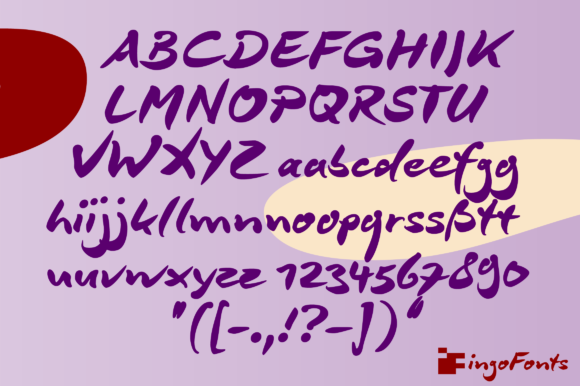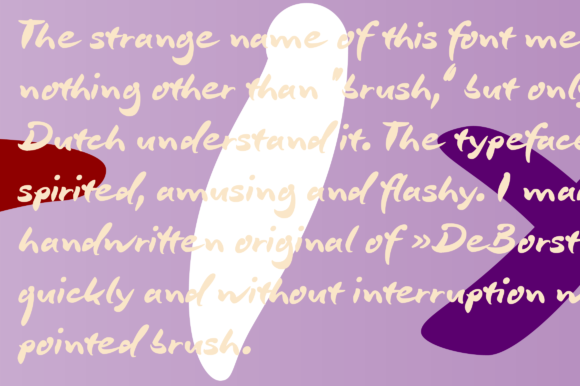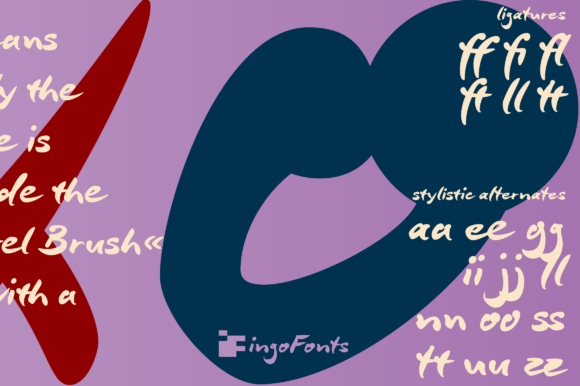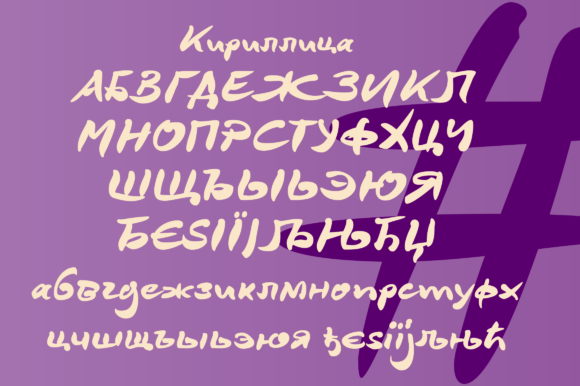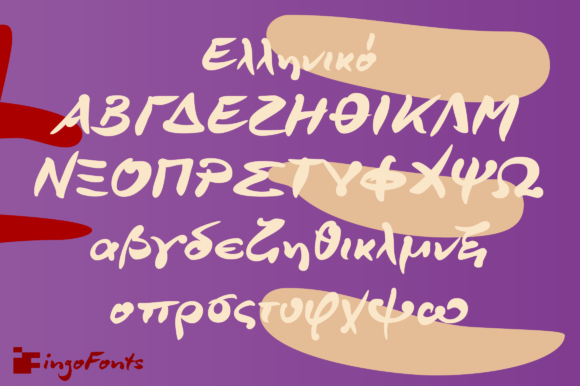
DeBorstel Brush Pro Font
About DeBorstel Brush Pro Font
DeBorstel Brush Pro is an incredibly charming and dynamic handwritten font with lots of authentic charm. Get inspired by its contemporary feel.